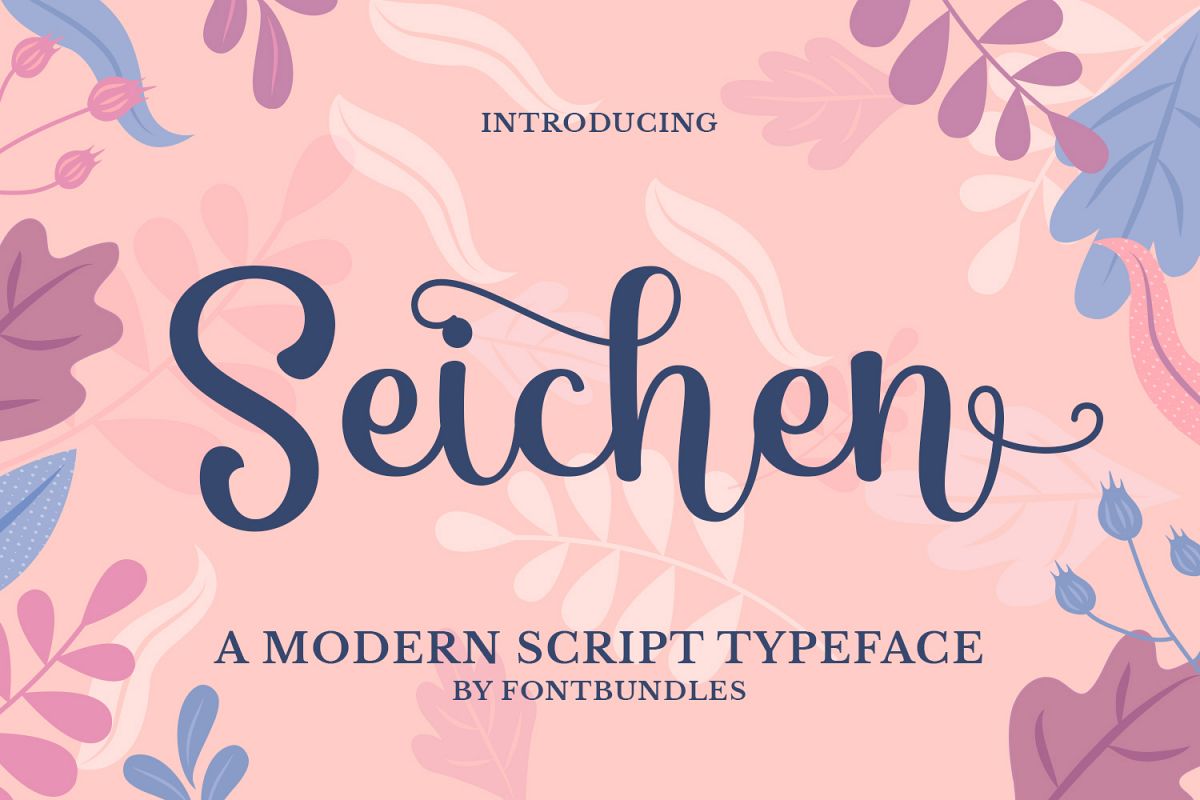
Seichen
Seichen is a modern script typeface. Perfect for display, logotype, logo, badges, labels, merchandise, poster, packaging, name card, business card, header, tittle, t-shirt design, and many more.